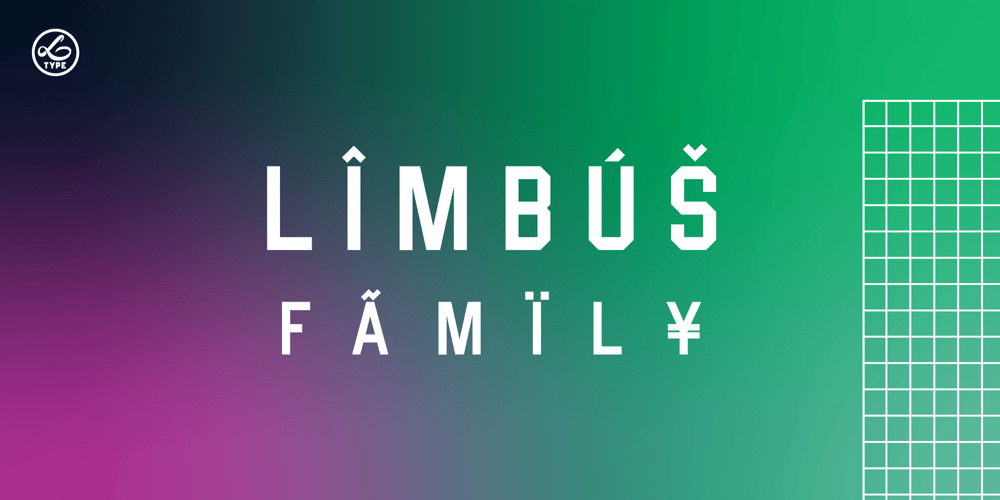
Limbus Sans
Limbus Sans font
Limbus Sans Font Family was designed by Lukas Gerber and published by Luker Type. Limbus Sans contains 3 styles and family package options. Limbus Sans is a modern and elegant font family created in 2023 by Lukas Gerber of LukerType. It comes in 3 distinct styles; Regular, Giant, and Sunk. The Regular style is suitable for both text and display use, while the Giant and Sunk style are a stilistic variation of the regular font. With its clean lines and easy to read glyphs, Limbus Sans is perfect for creating a sophisticated and timeless look in branding, advertising, packaging, and editorial design, with that distinctive college look.